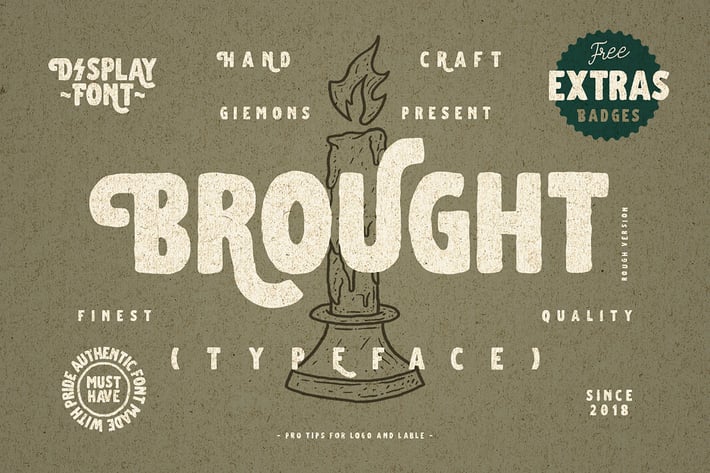
Brought Typeface
a Brought Typeface is vintage Display Font. FREE BADGES! Can make it easier to convey the message in your design. Use for awesome display, Logo, labeling, clothing, movie sceen, poster, movie title, gigs, album covers, logos, and much more.
Numerals & Punctuations
Multilanguage Support
Stylistic Uppercase
Stylistic lowercase